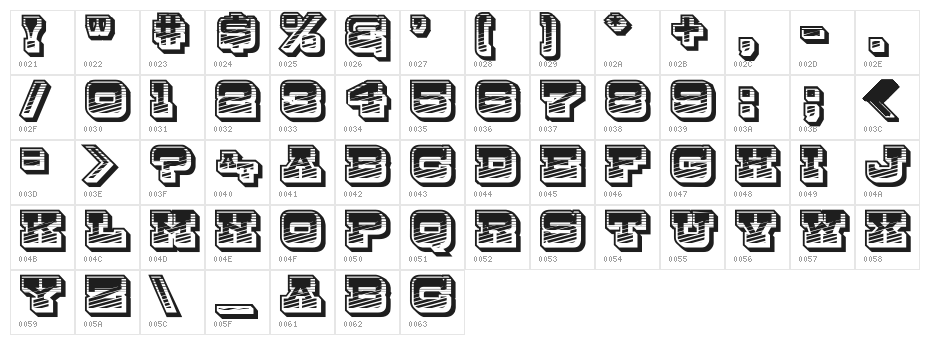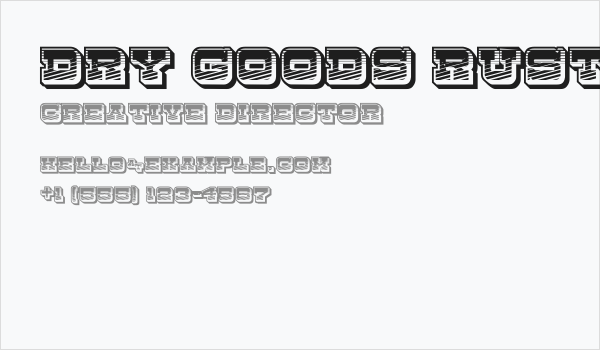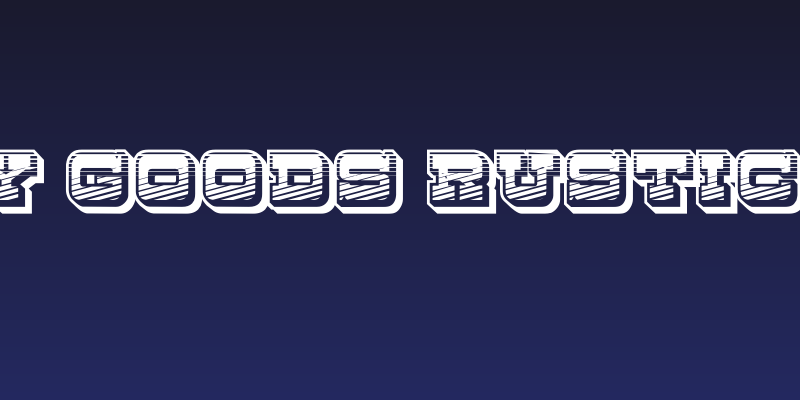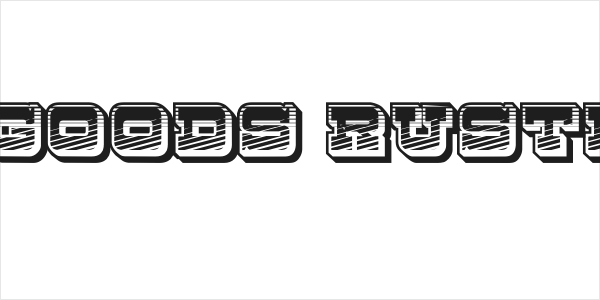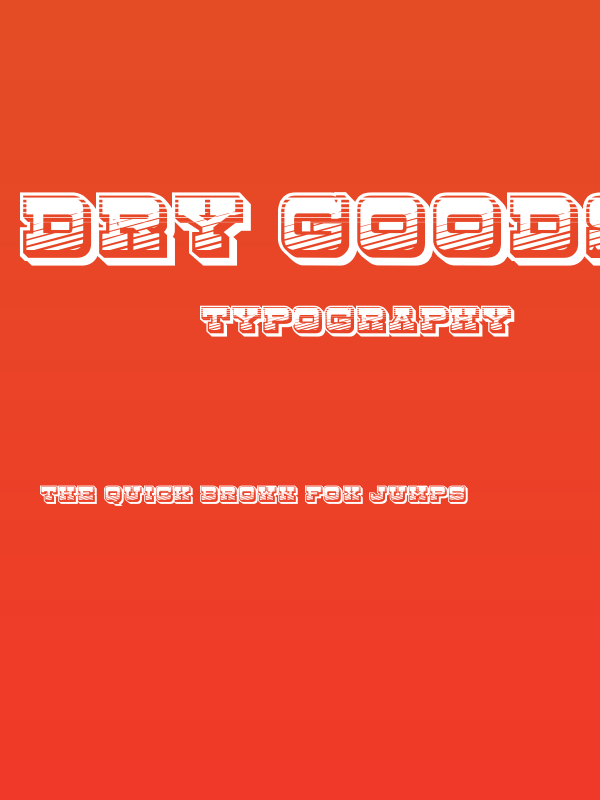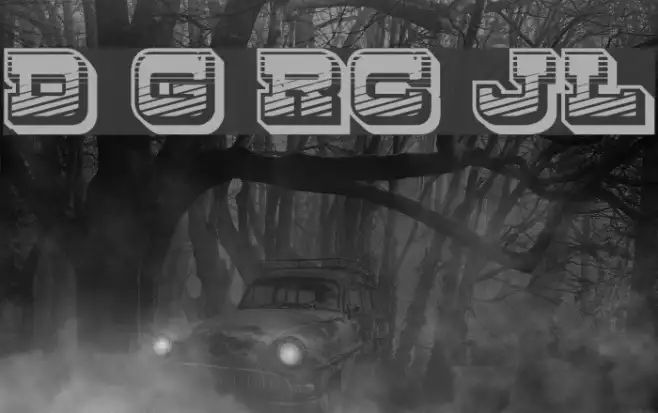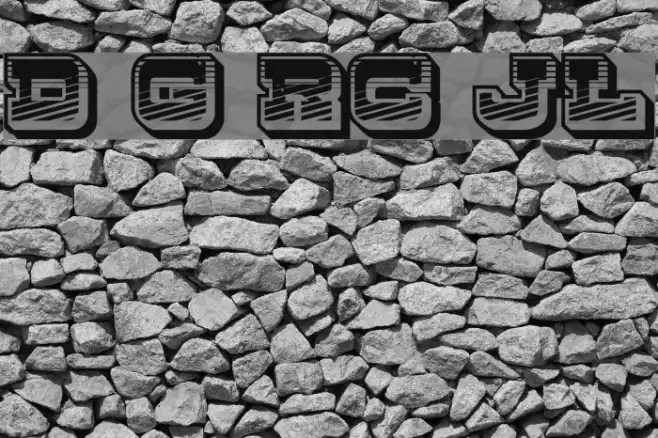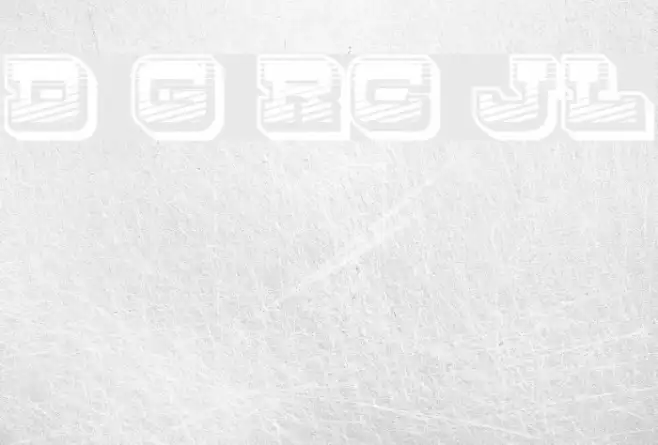
Dry Goods Rustic JL Font
Dry Goods Rustic JL Description
This font features a bold, decorative style with a rustic, textured appearance. The letters are outlined with a thick black border and filled with a striped pattern, giving them a three-dimensional look. The uppercase and lowercase letters maintain a consistent design, with the uppercase being more pronounced. The numbers and special characters follow the same aesthetic, ensuring uniformity across all glyphs. The font's unique style makes it stand out, ideal for projects that require a vintage or handcrafted feel. Its boldness and intricate design make it unsuitable for body text but perfect for eye-catching headlines or logos.
| Proposed Projects | Ideal for vintage-themed posters, logos, branding materials, and signage. |